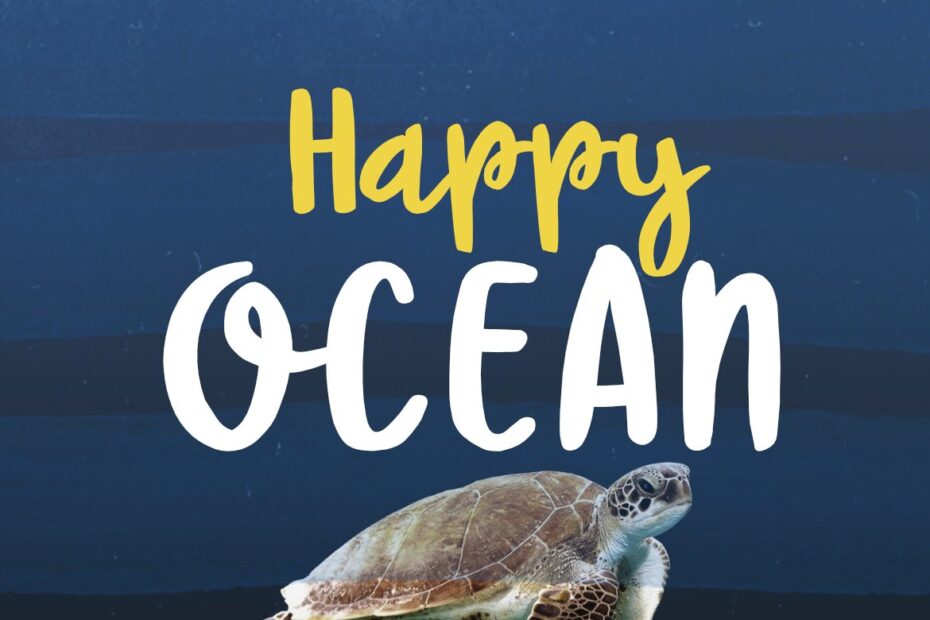
Discovering the Perfect Wave of Creativity
Have you ever been brainstorming for a new project and suddenly, a spark of inspiration hits you? Maybe it’s the sound of the ocean in the background, or the feeling of the sun on your skin. Whatever it is, that moment of creativity is what drives us to push the boundaries of design. And for designers, finding the right font can be the key to unlocking that perfect moment.
That’s where the Happy Ocean Font comes in – a friendly and handwritten font that’s designed to make your headlines and display fonts stand out. With its perfect weight and stylish design, it’s the perfect addition to any project. Whether you’re working on a beach-themed website or just want to add a touch of whimsy to your designs, Happy Ocean Font is a valuable tool for any designer looking to create something truly special.
Happy Ocean Font Key Features
- Unique Characteristics: Hand-drawn design with a playful, whimsical feel, evoking the carefree spirit of the ocean.
Happy Ocean Font Review
I’ve had the chance to work with “Happy Ocean Font” and I must say, it’s a mixed bag. ✨ Here are some things that I think work well:
- It’s playful and fun, perfect for designs that need a lighthearted vibe.
- The font has a lot of personality, making it stand out from more generic fonts.
- It’s suitable for use in children’s products, educational materials, or any design that needs a youthful feel.
- The font can be quite busy, making it difficult to read at smaller sizes.
- It may not be the best choice for formal or professional designs, as it can come across as too playful.
- The font’s eccentricities may not be suitable for designs that require precision and clarity.
Overall, I think “Happy Ocean Font” is a great addition to any designer’s toolkit, but it’s essential to use it judiciously. With its playful personality and unique character, it can add a lot of visual interest to a design. However, it’s not a one-size-fits-all solution, and designers should be mindful of its limitations.
Getting the Most Out of the Happy Ocean Font
For optimal results, use the Happy Ocean Font in conjunction with other ocean-inspired elements, such as waves, seashells, or fish.
The Happy Ocean Font is ideal for:
Designing beach-themed invitations, posters, or social media graphics.
Creating ocean-inspired logos or branding materials.
Adding a touch of whimsy to educational materials or children’s books.
Alternatives to “Happy Ocean Font” for Designers